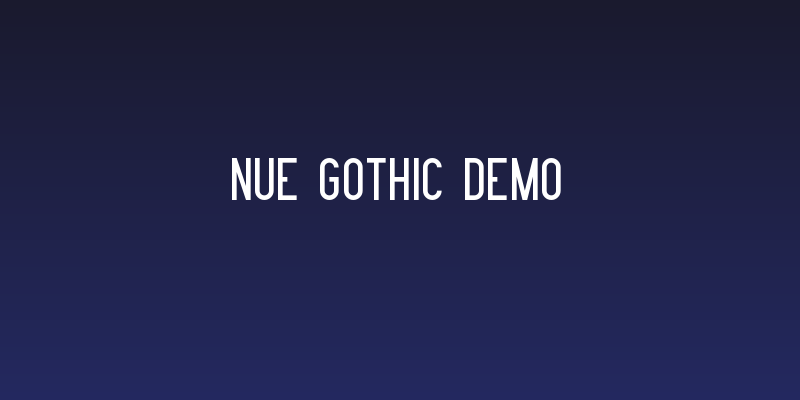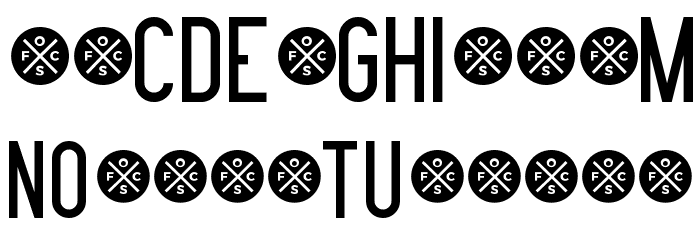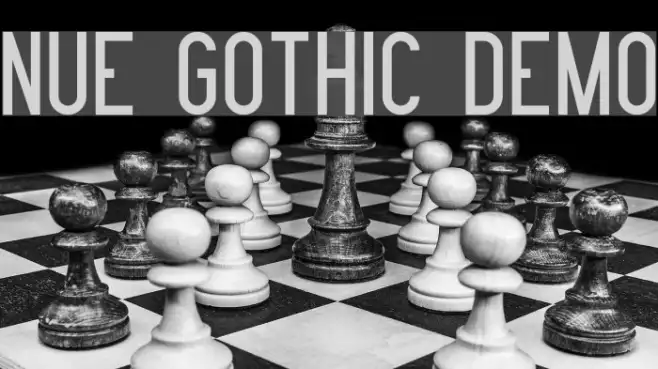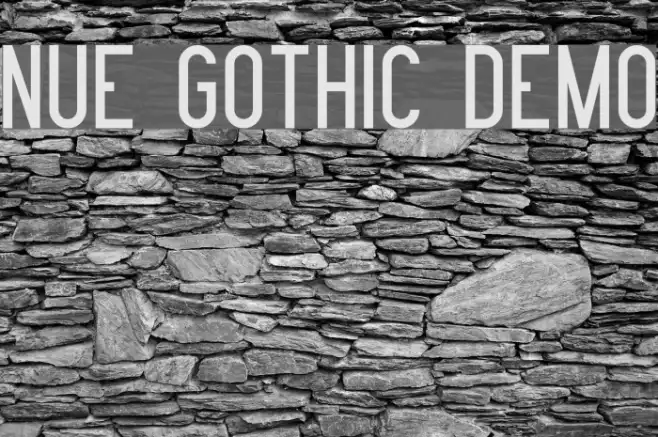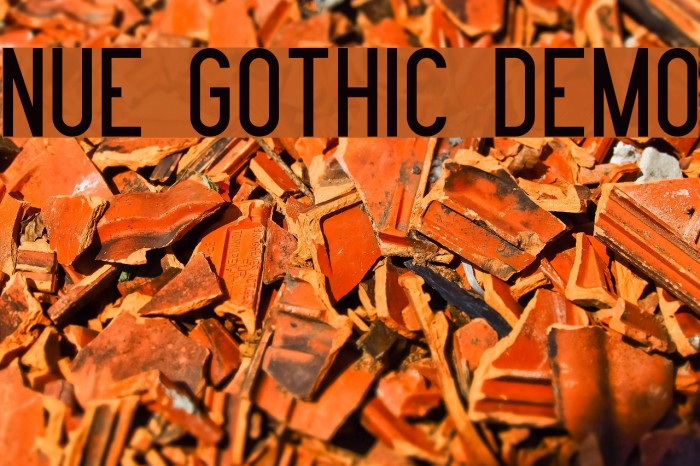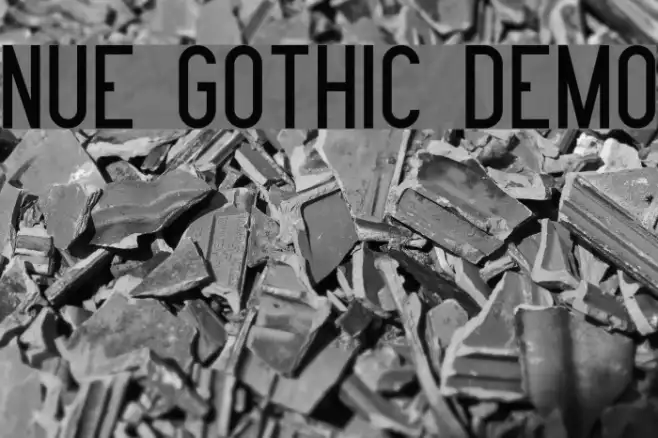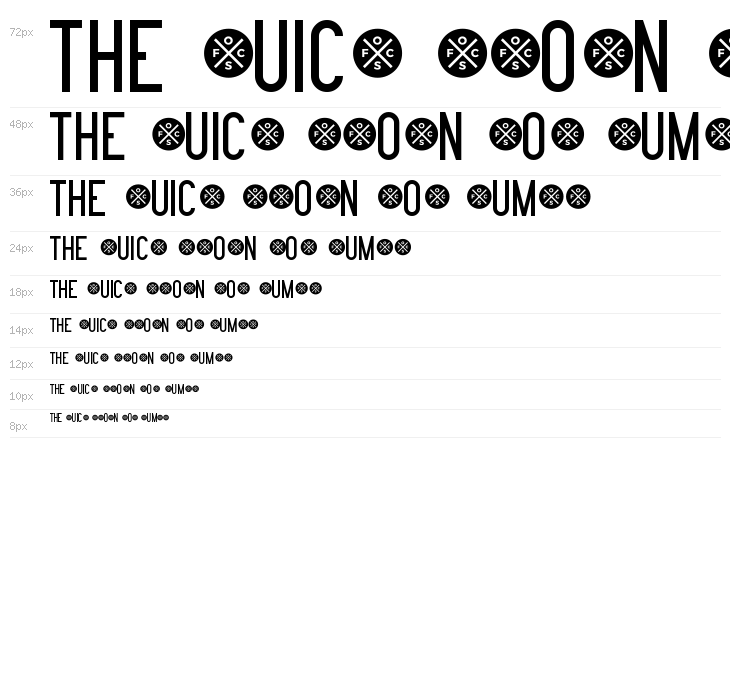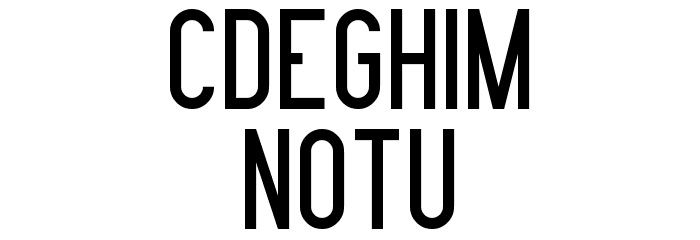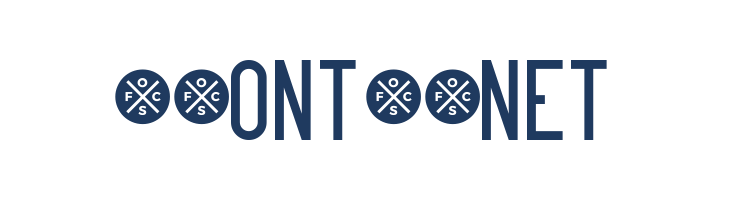
Nue Gothic Demo Font
This font features a modern, clean design with a geometric structure. The characters are tall and narrow, providing a sleek and contemporary appearance. The strokes are consistent in width, offering a uniform look across all letters. The font is highly legible, making it suitable for various applications. Its simplicity and elegance make it versatile for both digital and print media. The design is minimalistic, with no additional embellishments, focusing on clarity and readability. This font is ideal for projects that require a modern and professional aesthetic.
| Proposed Projects | Ideal for branding, advertising, web design, and editorial layouts. |